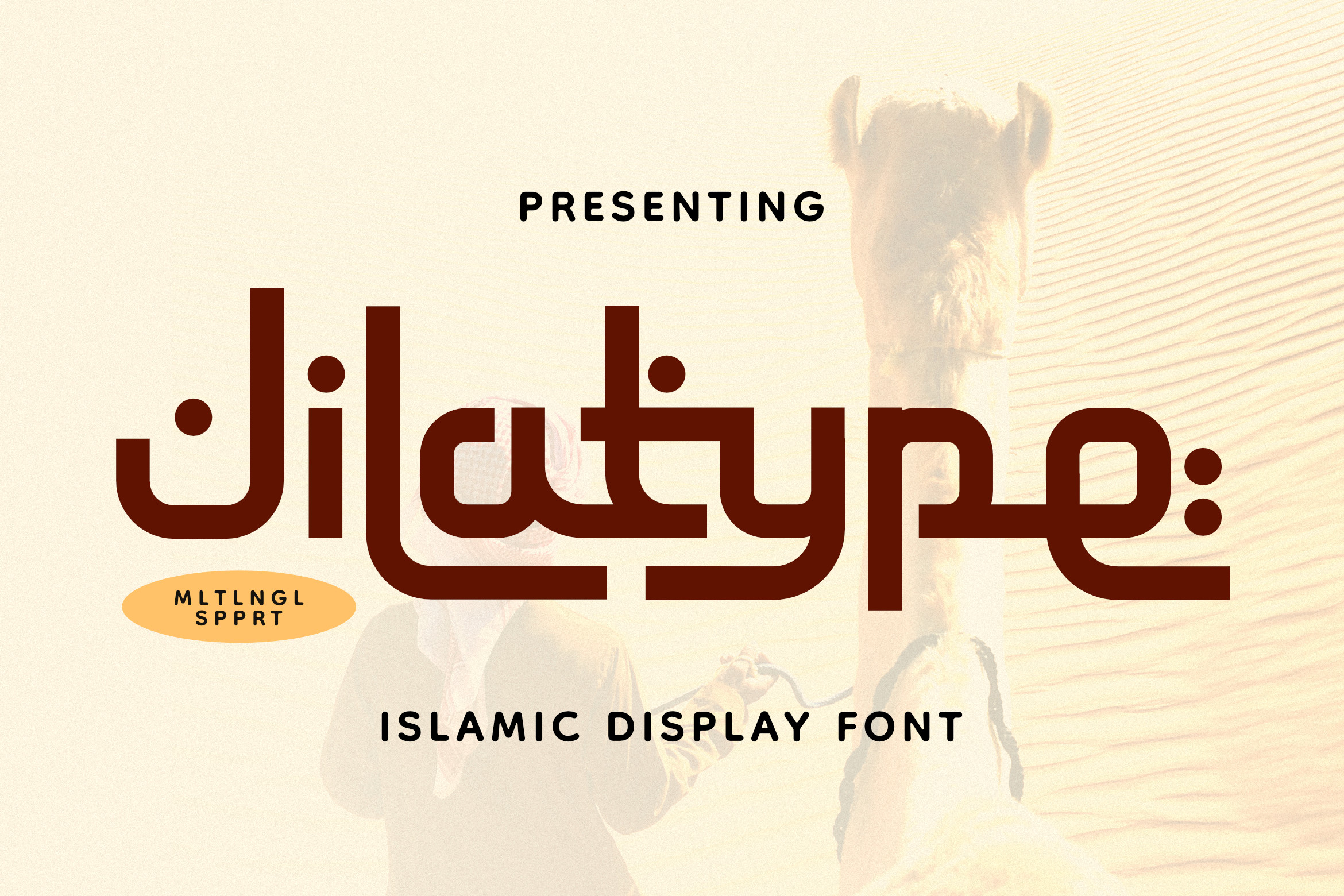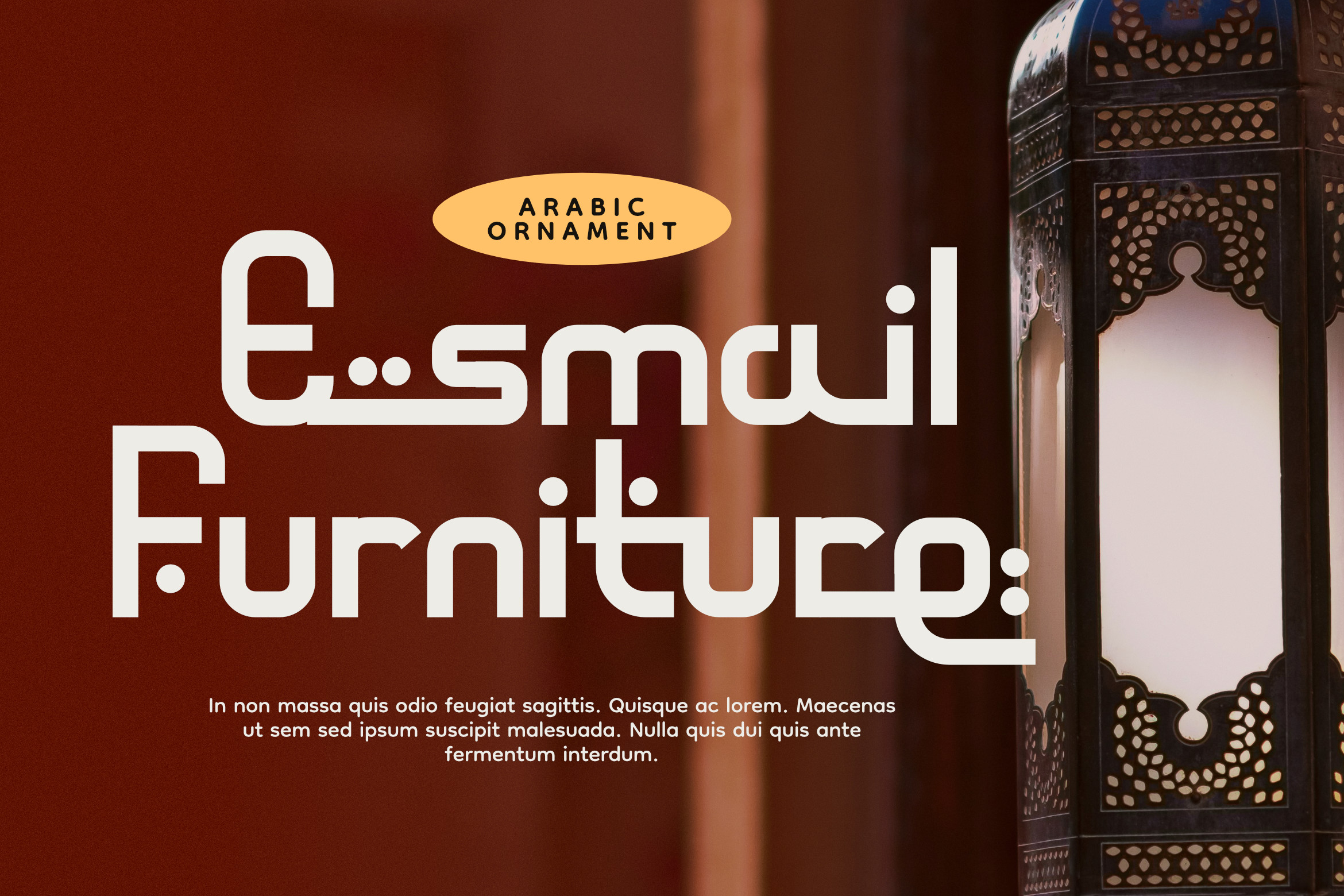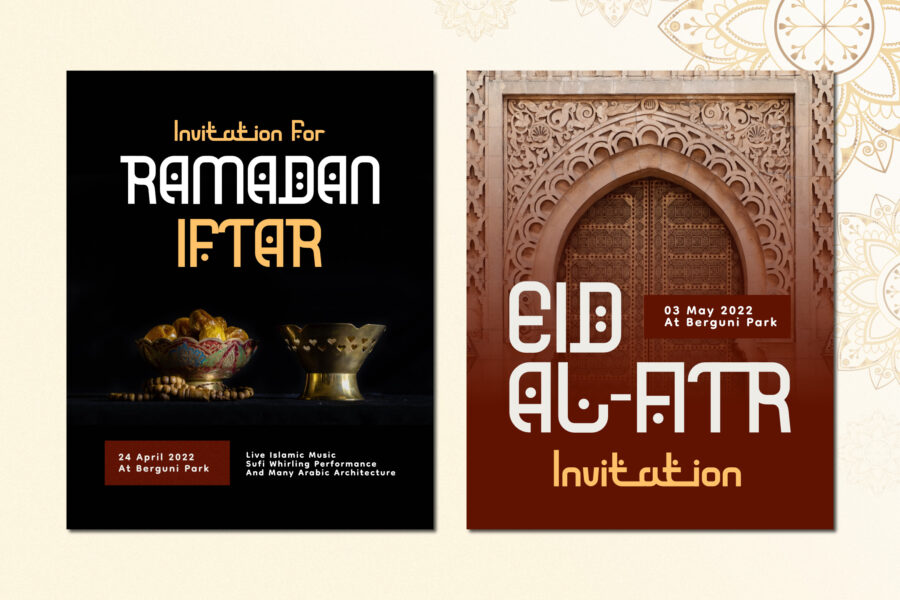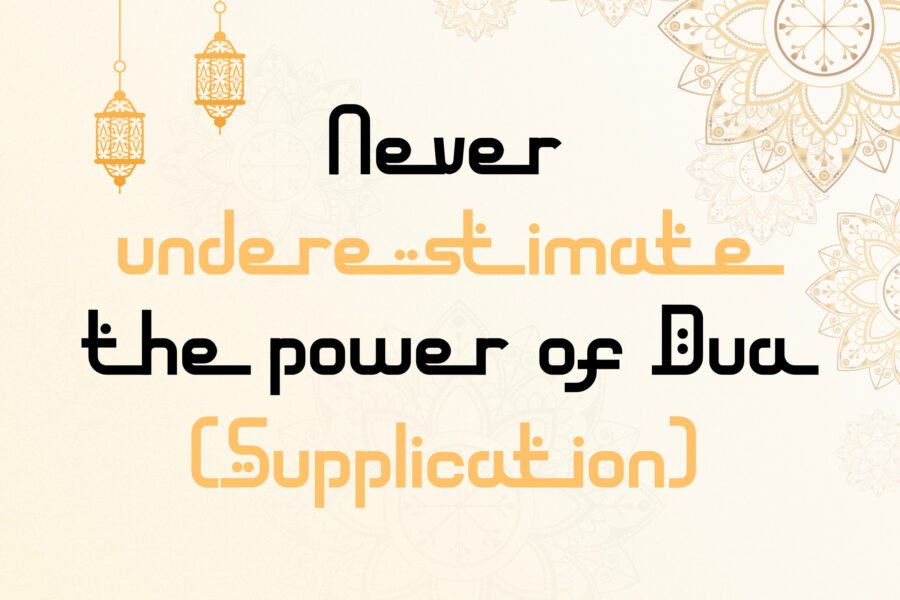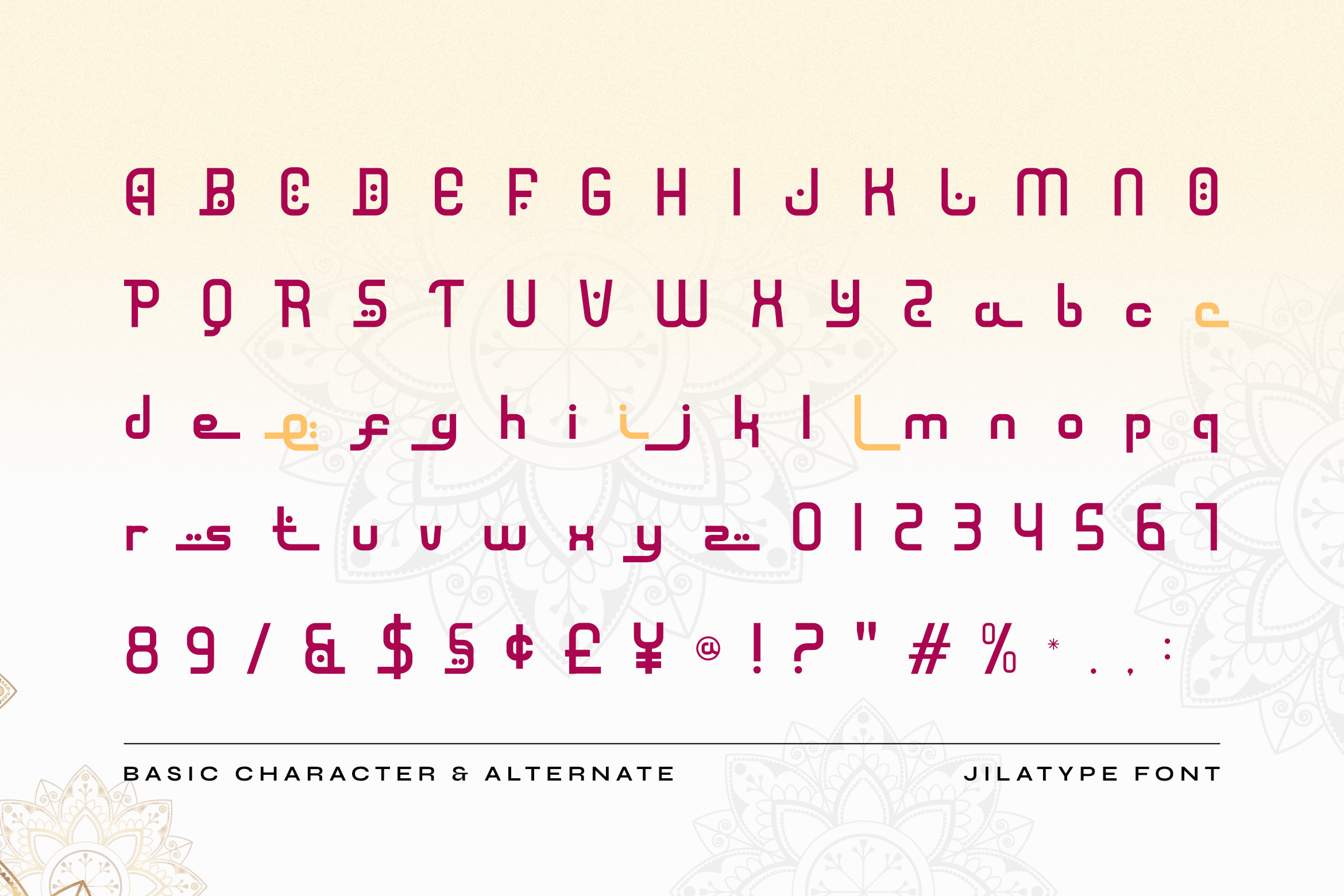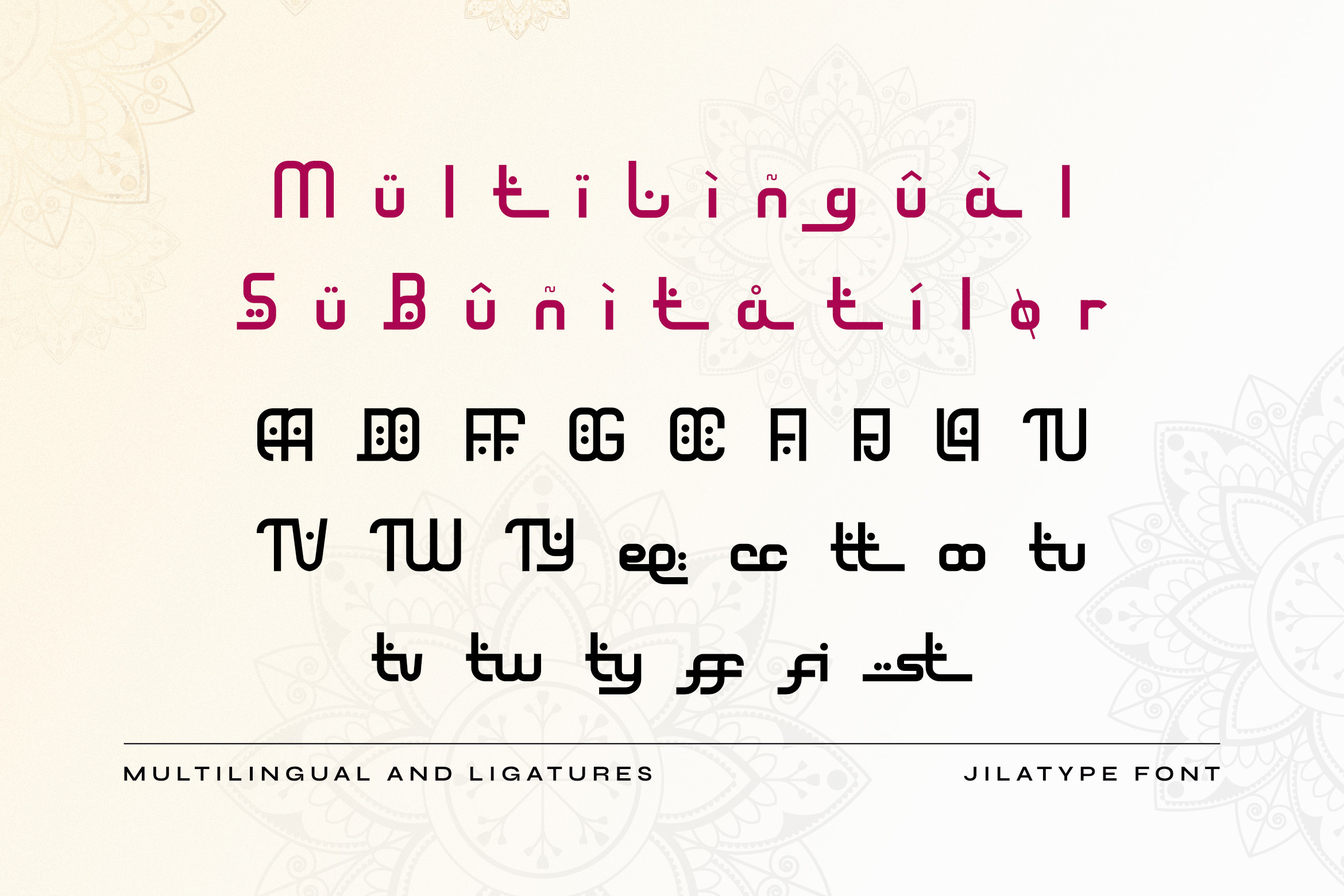
Jilatype is a bold and contemporary Islamic display font that merges geometric forms with Middle Eastern visual nuances. Designed to evoke Arabic typographic ornamentation, this font features stylized curves and linear compositions that are perfect for branding, event posters, or cultural presentations. Its modular look and distinct rhythm make it suitable for both titles and short phrases that demand attention.
This typeface includes alternate characters and multilingual support, enhancing its flexibility across diverse design contexts. Whether used in Ramadan campaigns, Islamic product packaging, or educational materials, Jilatype injects a modern, culturally-rooted tone that celebrates identity with a sleek visual voice.